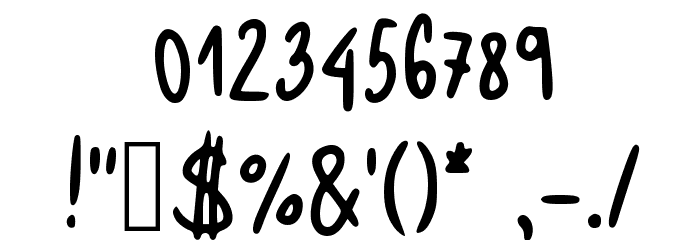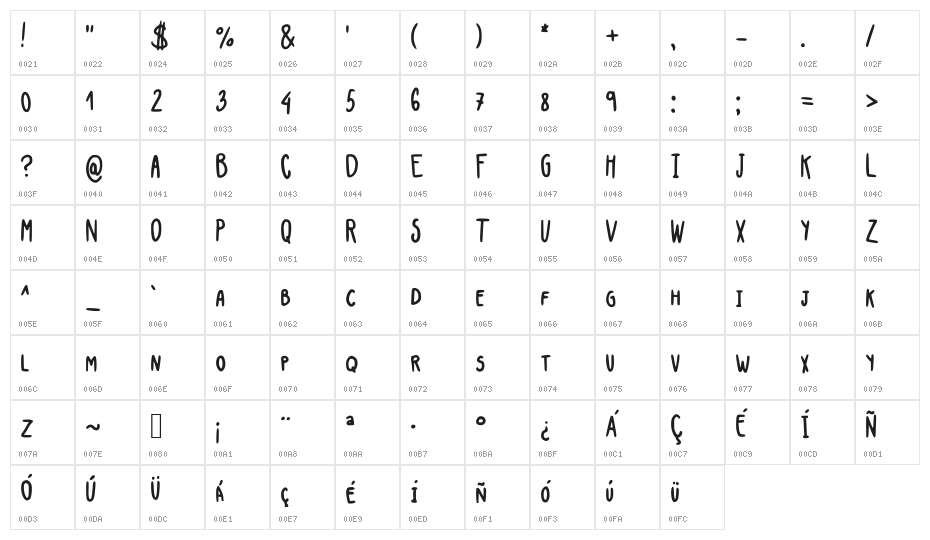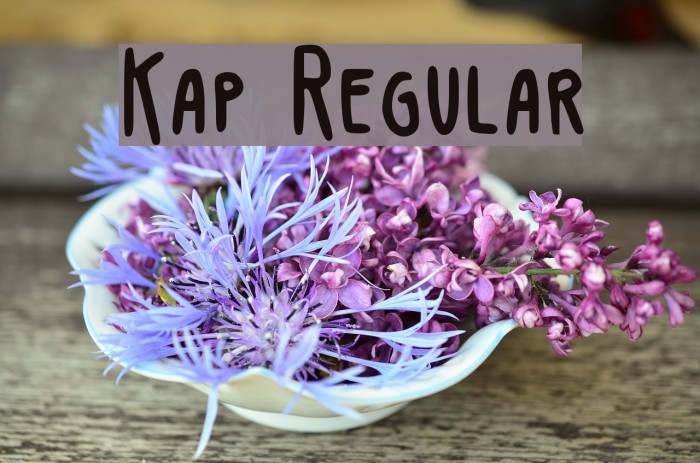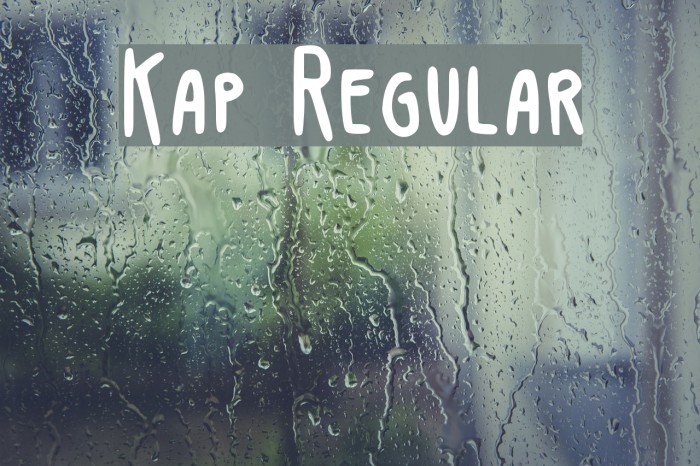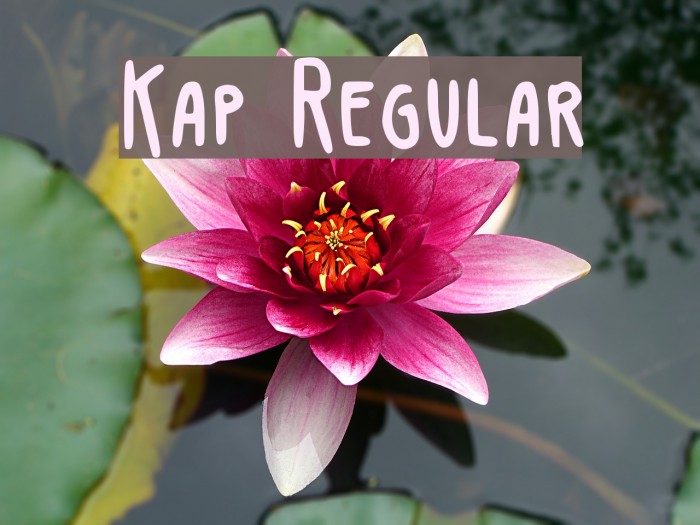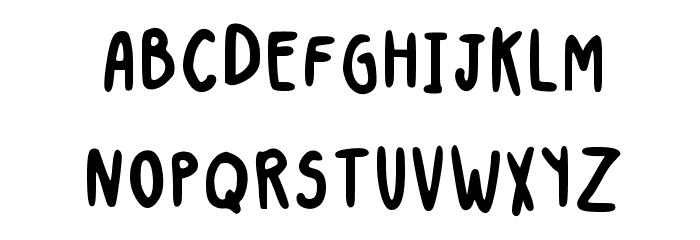
Kap Regular Font
Kap Regular Description
This font features a playful and informal style, characterized by its rounded and slightly irregular letterforms. The uppercase and lowercase letters maintain a consistent flow, giving a hand-drawn appearance that adds a personal touch. The numbers and special characters follow the same whimsical design, making the font versatile for creative projects. Its casual and friendly look makes it suitable for a variety of uses, from children's books to informal branding.
| Proposed Projects | Ideal for children's books, informal branding, greeting cards, and playful posters. |